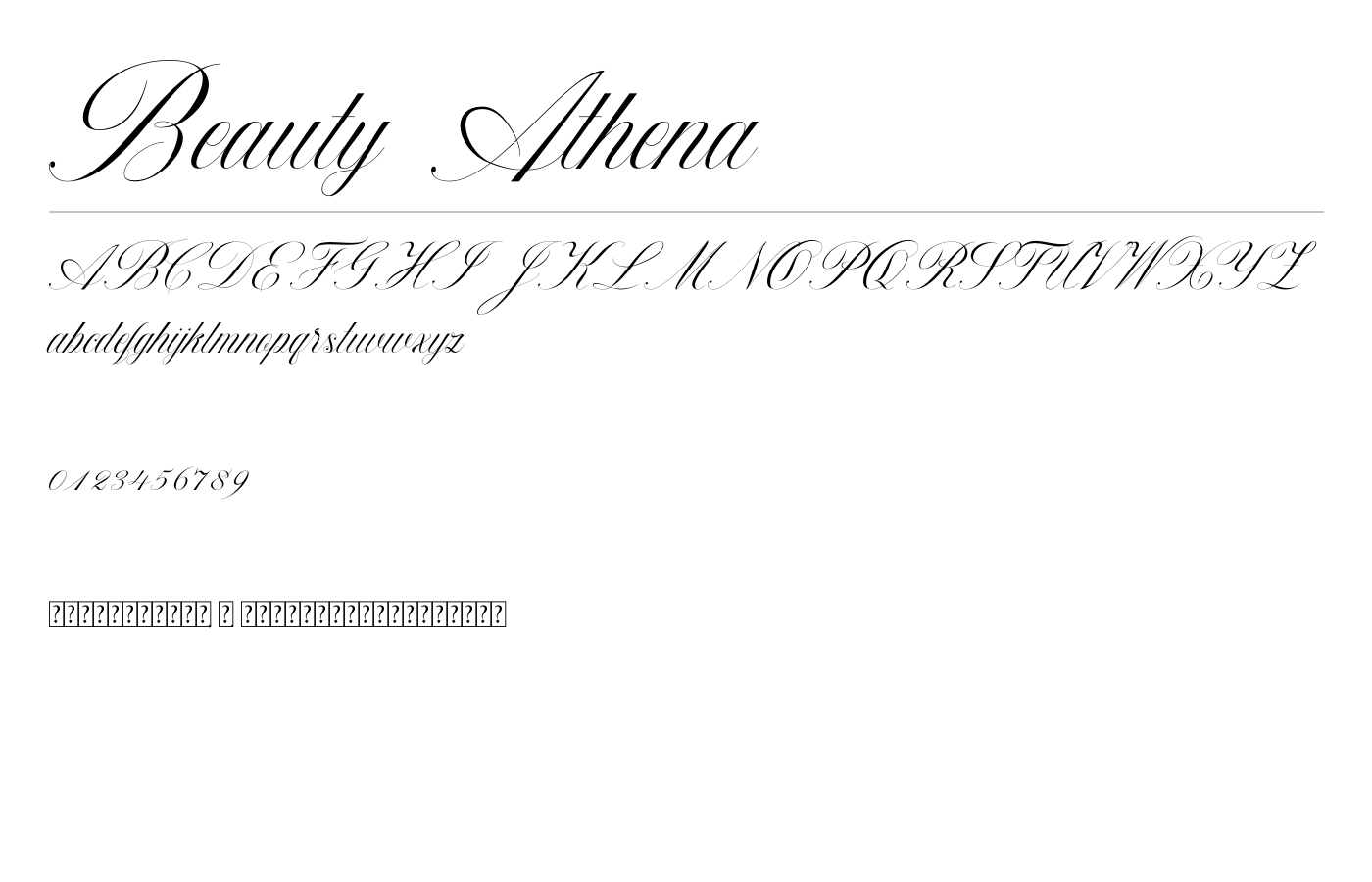
Beauty Athena is an elegant script font characterized by its delicate, flowing strokes and high contrast between thick and thin lines. Its refined, graceful letterforms with sweeping curves and slender shapes make it perfect for luxury branding, wedding invitations, and sophisticated editorial designs where a sense of fine artistry and femininity is desired. This font conveys timeless beauty and stylish refinement, adding an air of elegance to headlines and logos.
Beauty Athena Font
About Beauty Athena Font